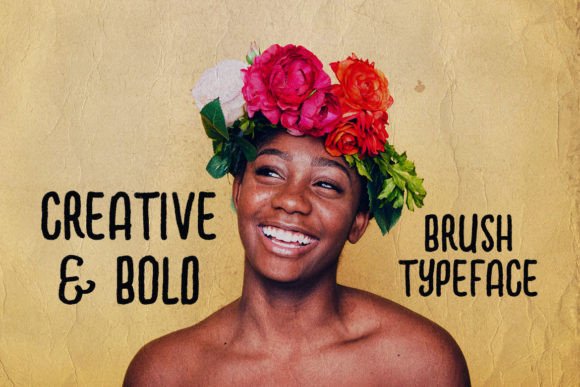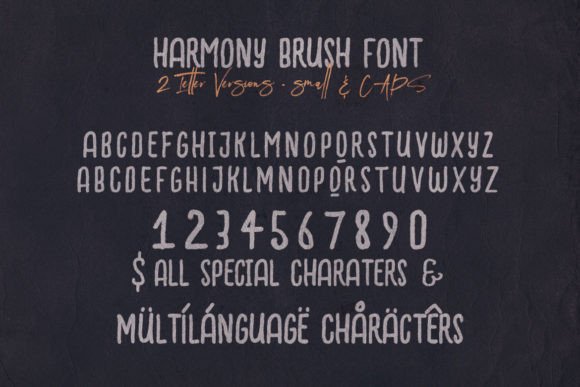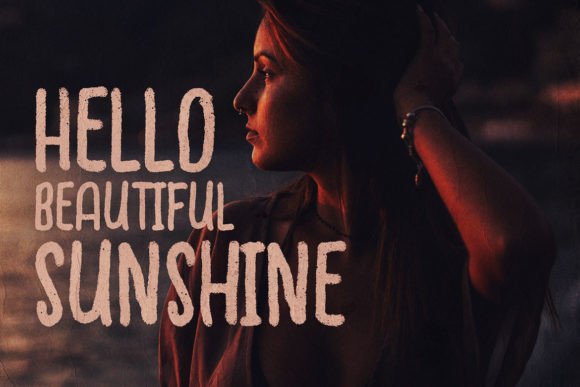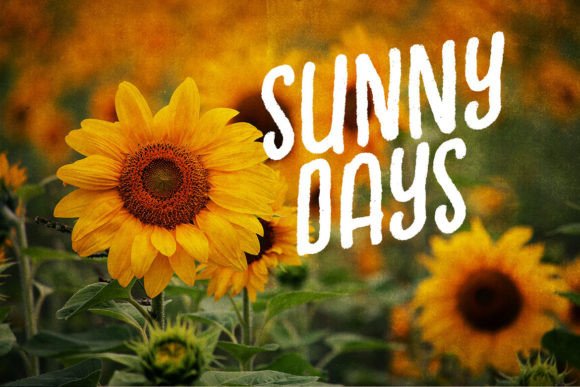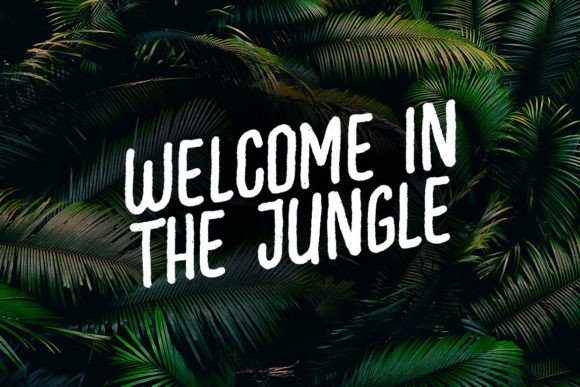
Introducing Harmony Font: The Funky and Cool Brush Display Font for Artistic Masterpieces
Are you a designer or crafter looking for a unique and fresh font to elevate your art projects? Look no further than Harmony Font! This funky and cool brush display font is perfect for adding a touch of personality and style to any design idea you might have. With its distinctive and artistic flair, Harmony Font is sure to make your creations stand out from the crowd.
What Makes Harmony Font So Special?
Harmony Font is a one-of-a-kind brush display font that boasts a fresh and unique aesthetic. Its funky and cool design makes it perfect for a wide range of art projects, from creative crafts to digital designs. Whether you’re working on a logo, poster, or social media graphic, Harmony Font is sure to add a touch of magic to your work.
One of the key features that sets Harmony Font apart is its hand-brushed look. The font has been carefully crafted to mimic the look and feel of hand-painted brushstrokes, giving it a distinctly artistic and organic feel. This makes it perfect for designers and crafters who want to add a touch of personality and whimsy to their work.
Perfect for a Wide Range of Art Projects
Harmony Font is a versatile font that can be used for a wide range of art projects. Whether you’re working on a:
- Logo design: Add a touch of personality and style to your brand’s logo with Harmony Font.
- Poster design: Create eye-catching posters that grab attention with Harmony Font’s bold and funky design.
- Social media graphic: Elevate your social media graphics with Harmony Font’s fresh and unique aesthetic.
- Craft project: Add a touch of artistic flair to your craft projects, from scrapbooking to card making.
Harmony Font is the perfect choice. Its flexibility and versatility make it a valuable addition to any designer’s or crafter’s toolkit.
Key Features of Harmony Font
So, what can you expect from Harmony Font? Here are just a few of its key features:
- Hand-brushed design: Gives Harmony Font a distinctly artistic and organic feel.
- Funky and cool aesthetic: Adds a touch of personality and style to any design.
- Fresh and unique: Helps your designs stand out from the crowd.
- Versatile: Perfect for a wide range of art projects, from logos to craft projects.
Why Choose Harmony Font?
So, why choose Harmony Font for your art projects? Here are just a few reasons:
- Adds a touch of personality: Harmony Font’s unique design helps your creations stand out from the crowd.
- High-quality: Harmony Font is a high-quality font that’s been carefully crafted for optimal performance.
Get Ready to Elevate Your Art Projects with Harmony Font
In conclusion, Harmony Font is a must-have for designers and crafters looking to add a touch of personality and style to their art projects. Its unique and artistic design makes it perfect for a wide range of creative endeavors, from logos to craft projects. So don’t miss out – get Harmony Font today and start elevating your art projects to new heights!